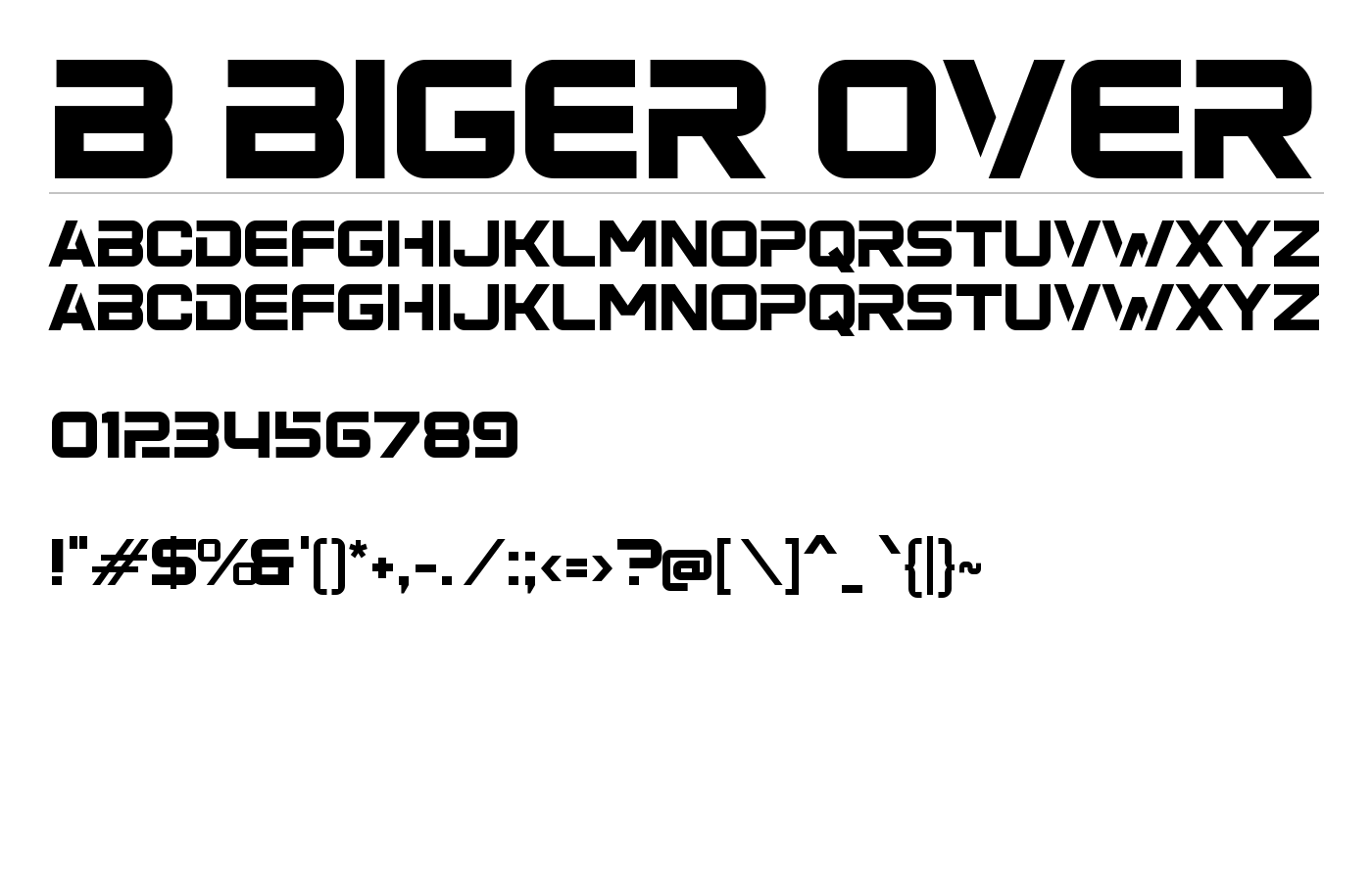
Biger Over is a bold, geometric sans serif font with a futuristic and industrial feel. Its strong, angular letterforms and wide stance give it a commanding presence, making it ideal for headlines, logos, and branding that require a modern, tech-inspired look. This font works well in designs that aim to communicate strength, innovation, and forward-thinking style.